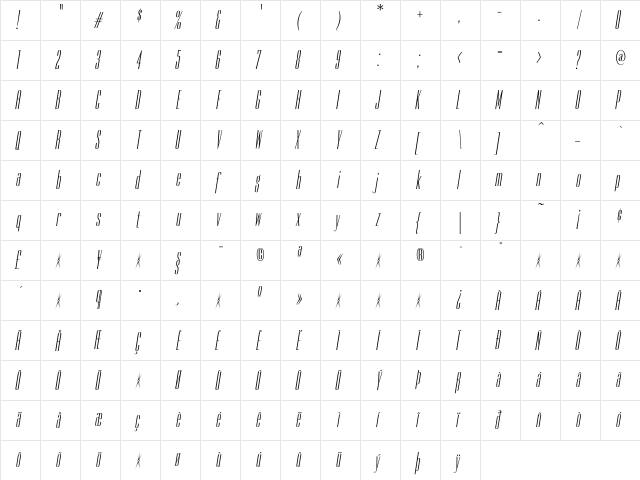
BureauEmpireItalic Regular
Design Context for BureauEmpireItalic Typeface
BureauEmpireItalic offers clean, dependable letterforms without strong stylistic allegiance, making it a practical choice for designers who need flexibility. The slanted form adds forward momentum and visual energy.
Pro Tip: Use BureauEmpireItalic for emphasis, pull quotes, and subheadings where its slanted energy can add rhythm to the layout.